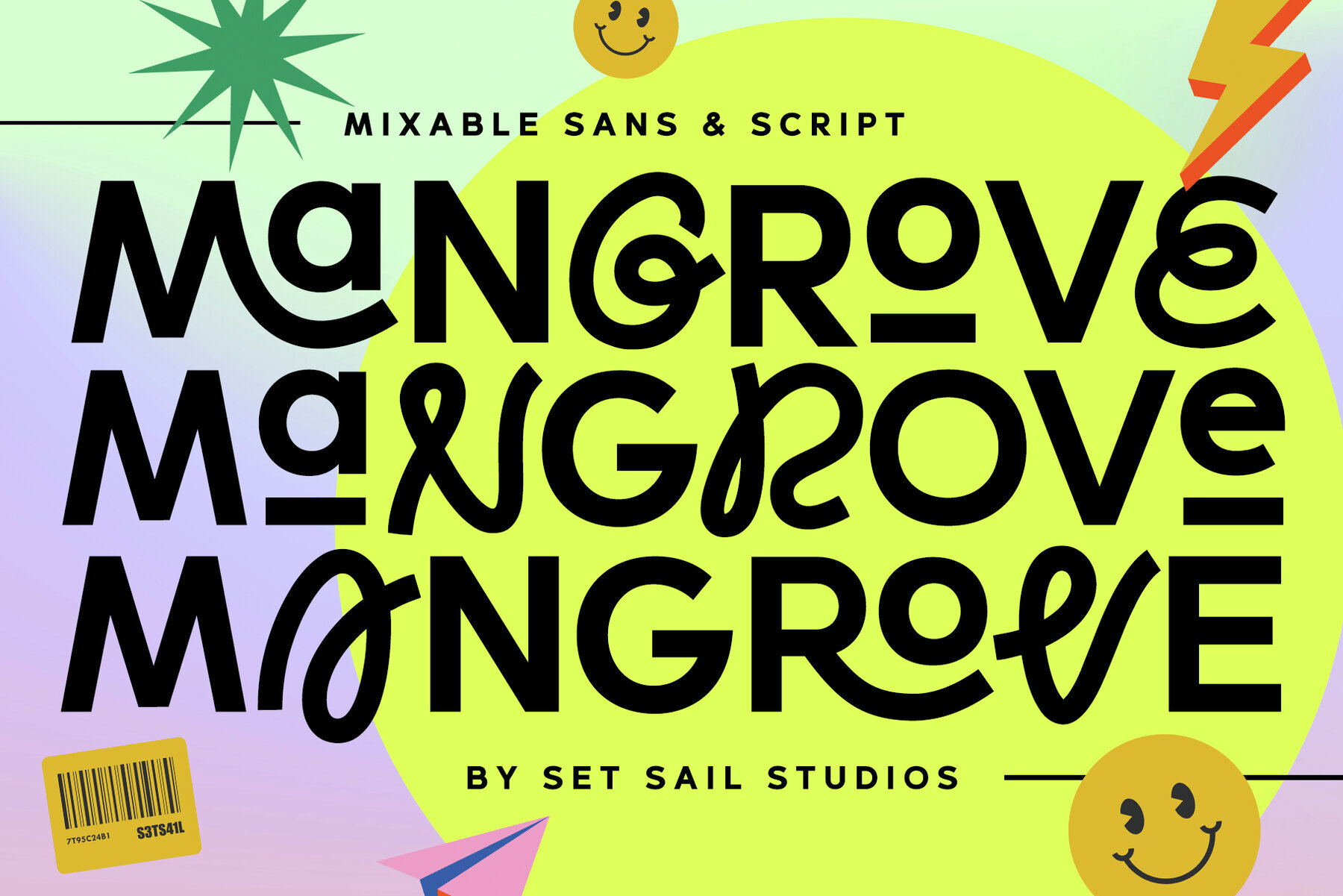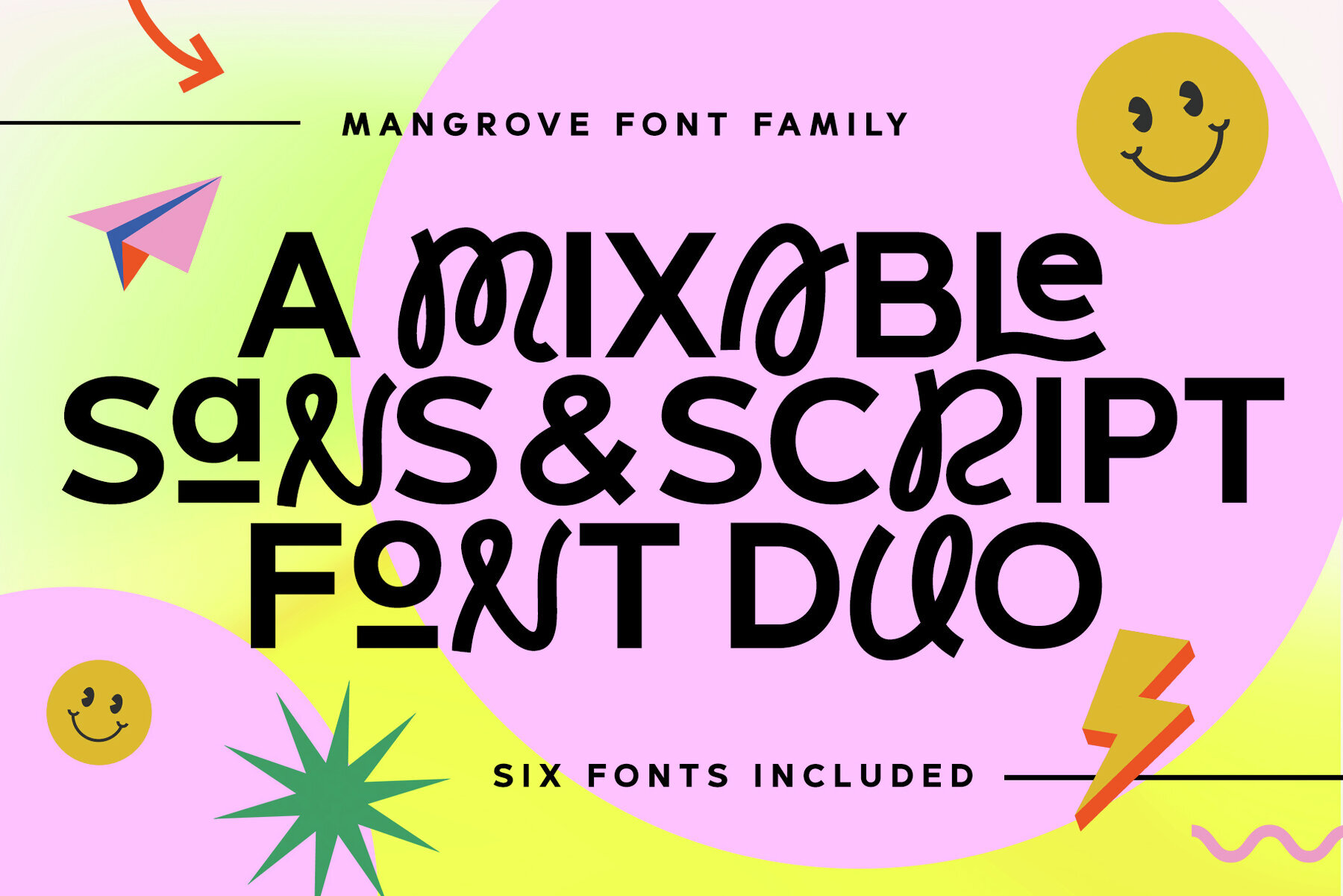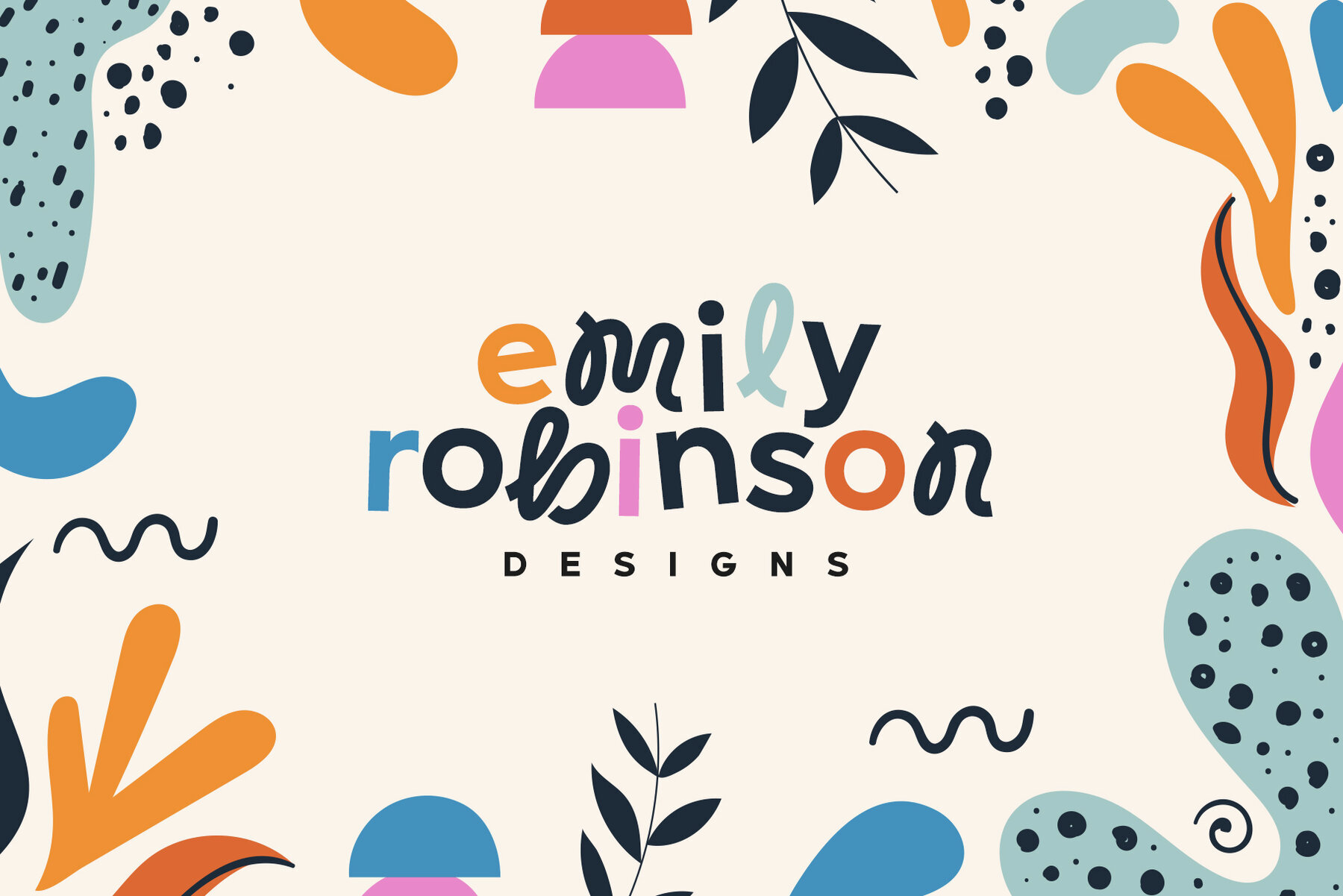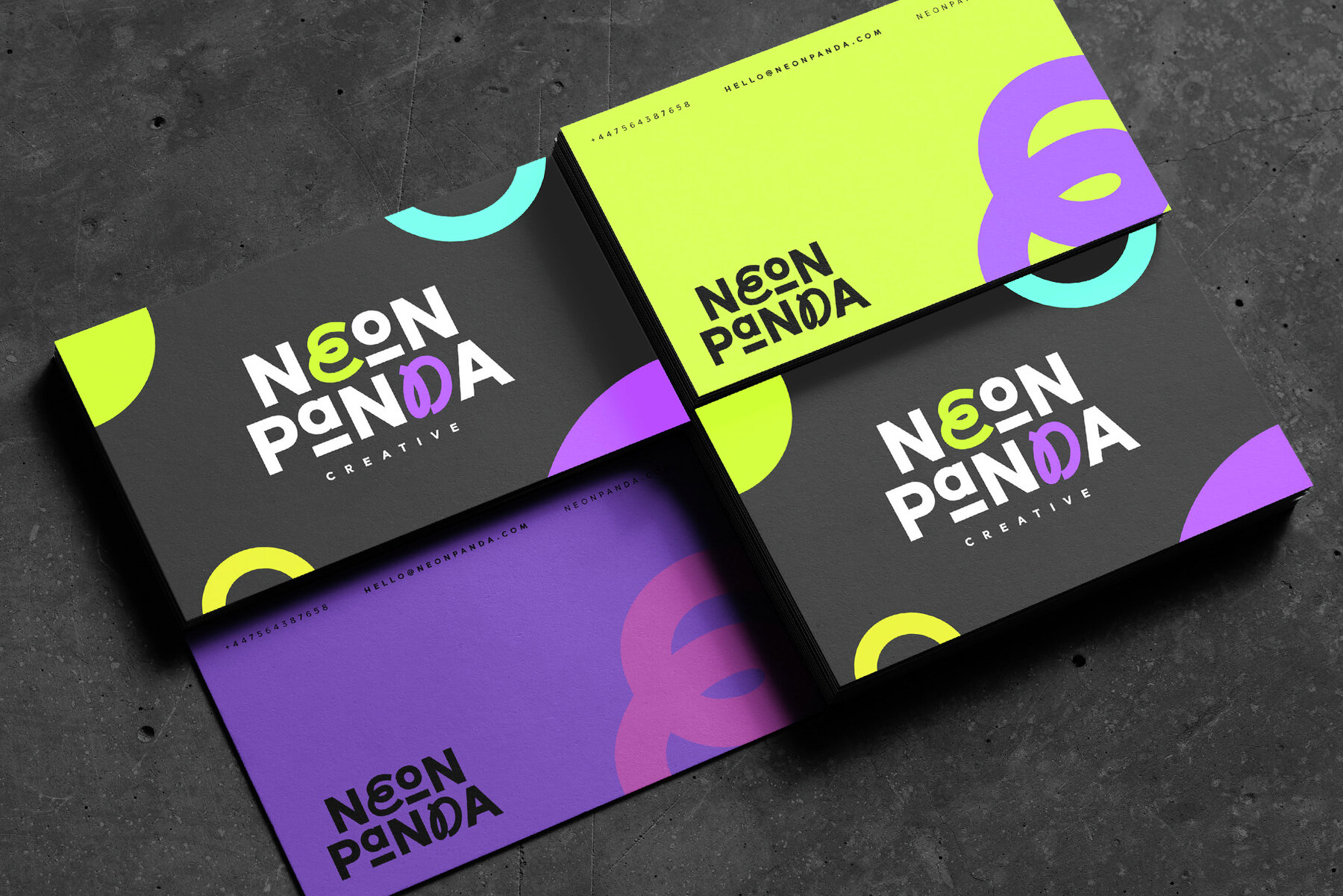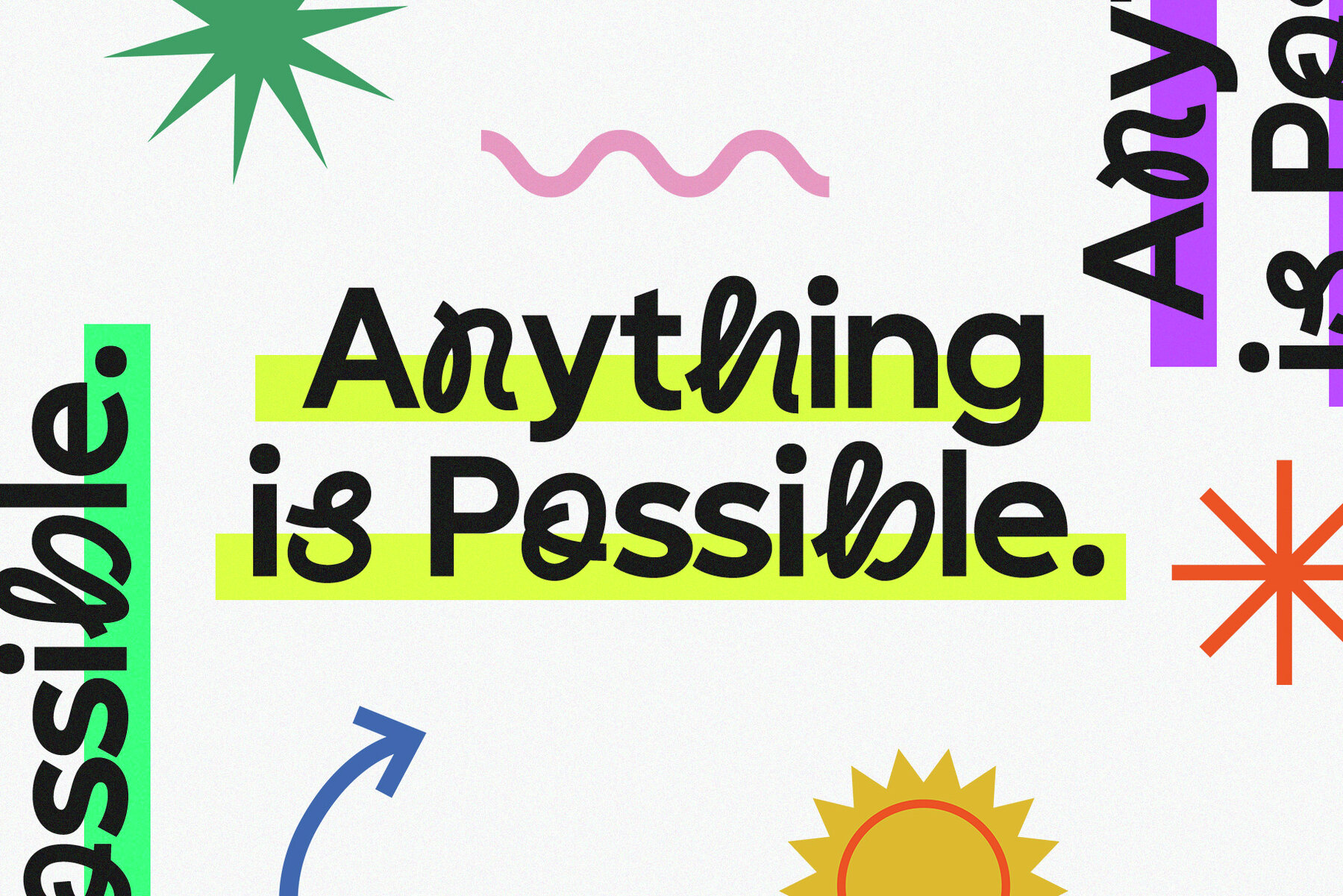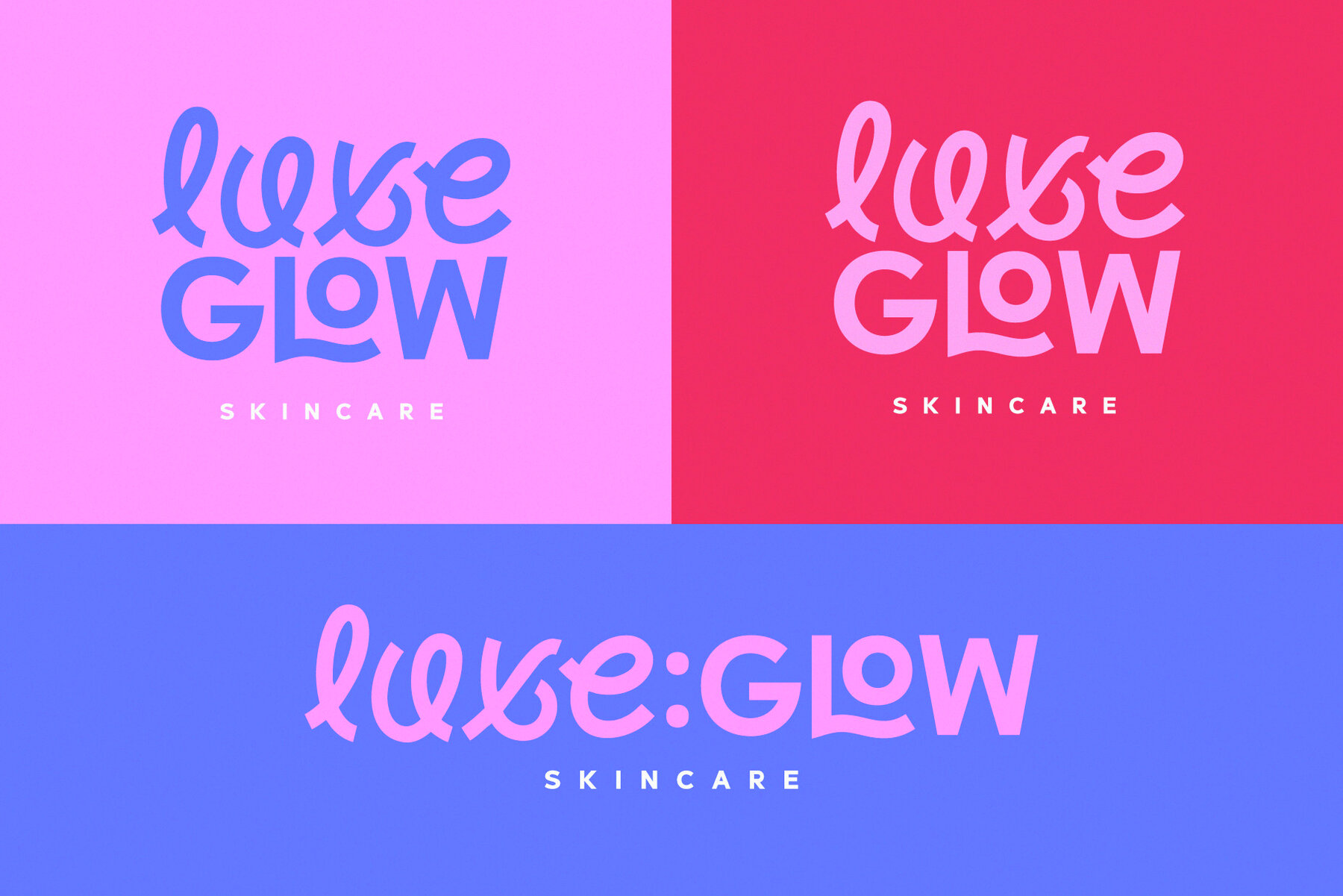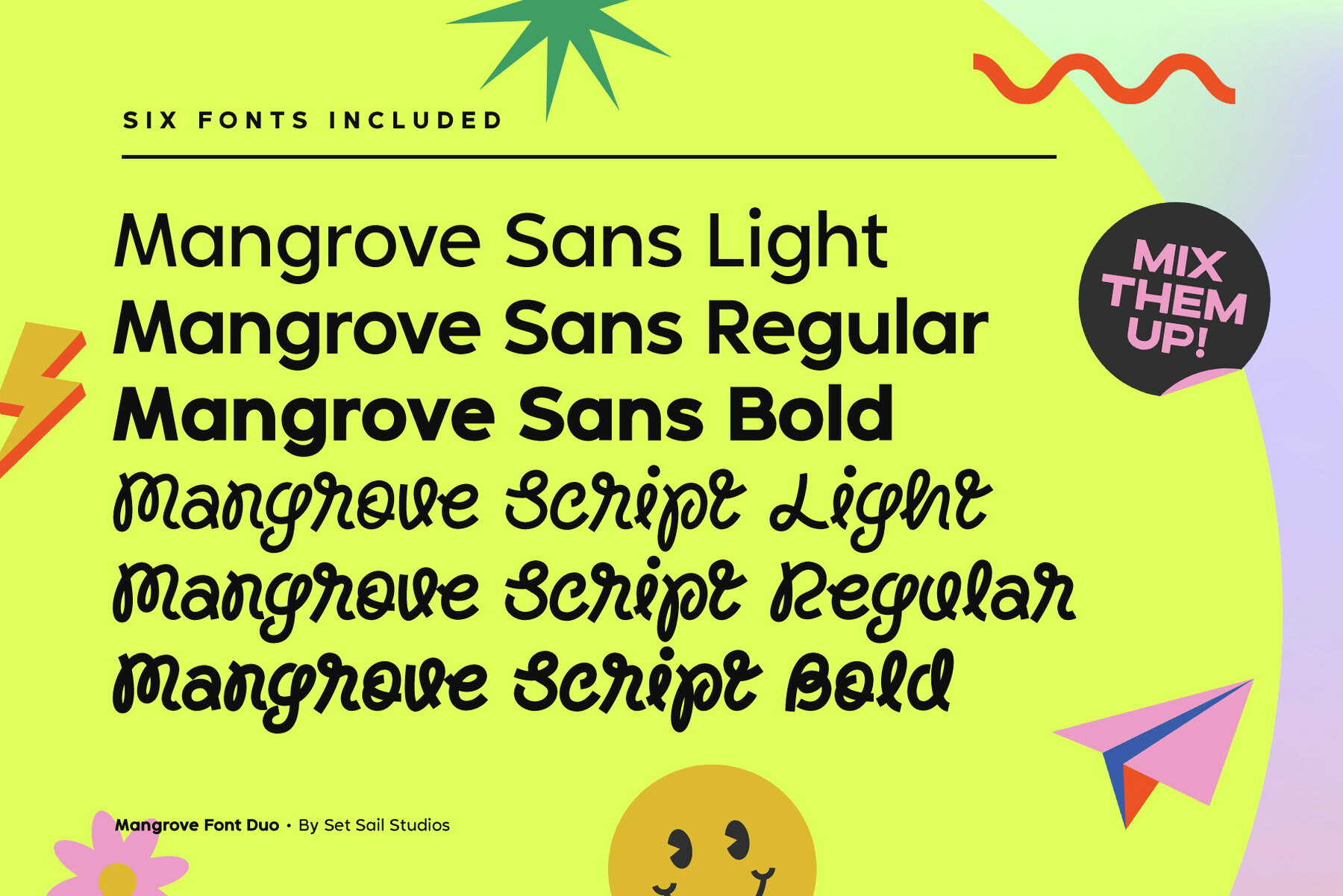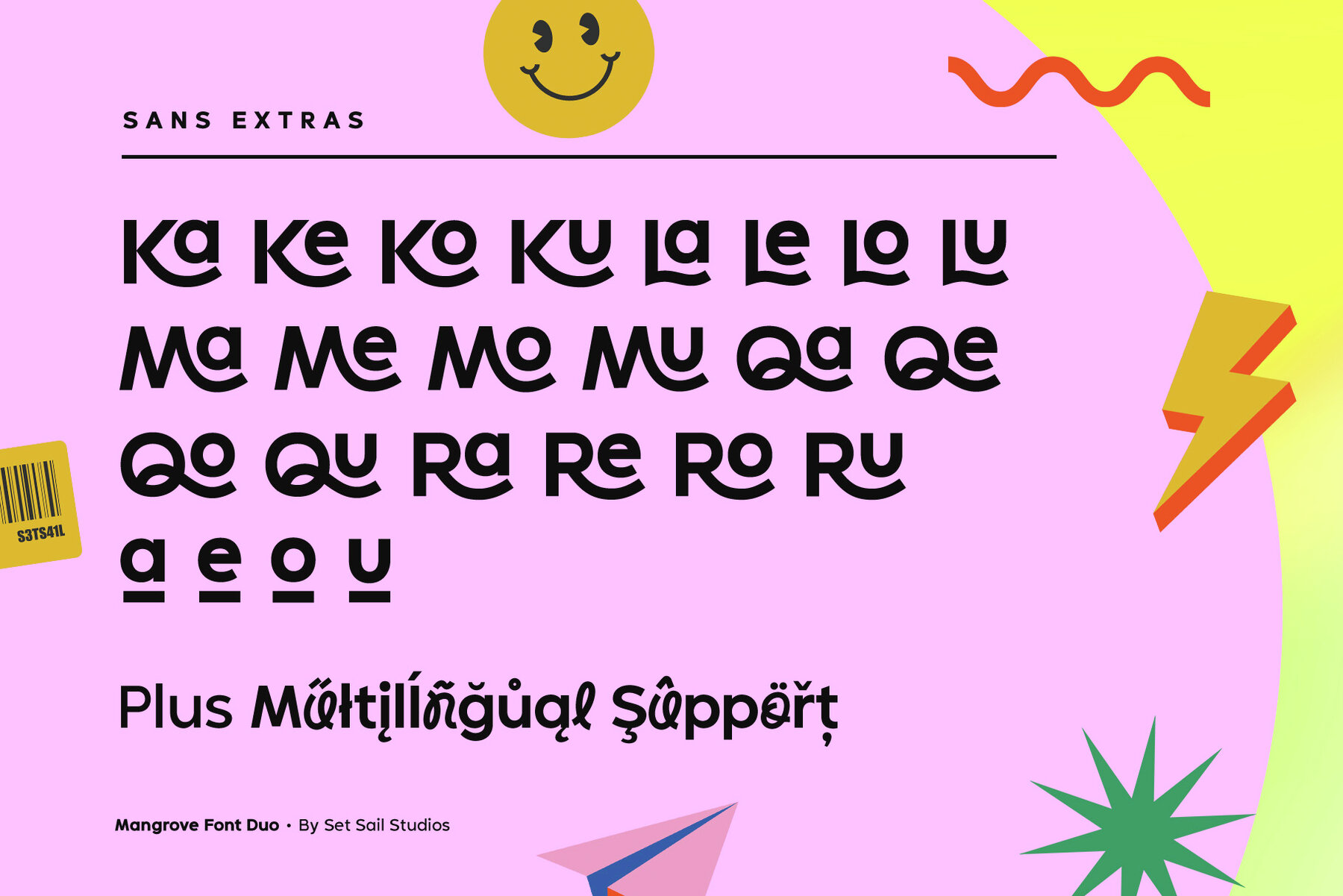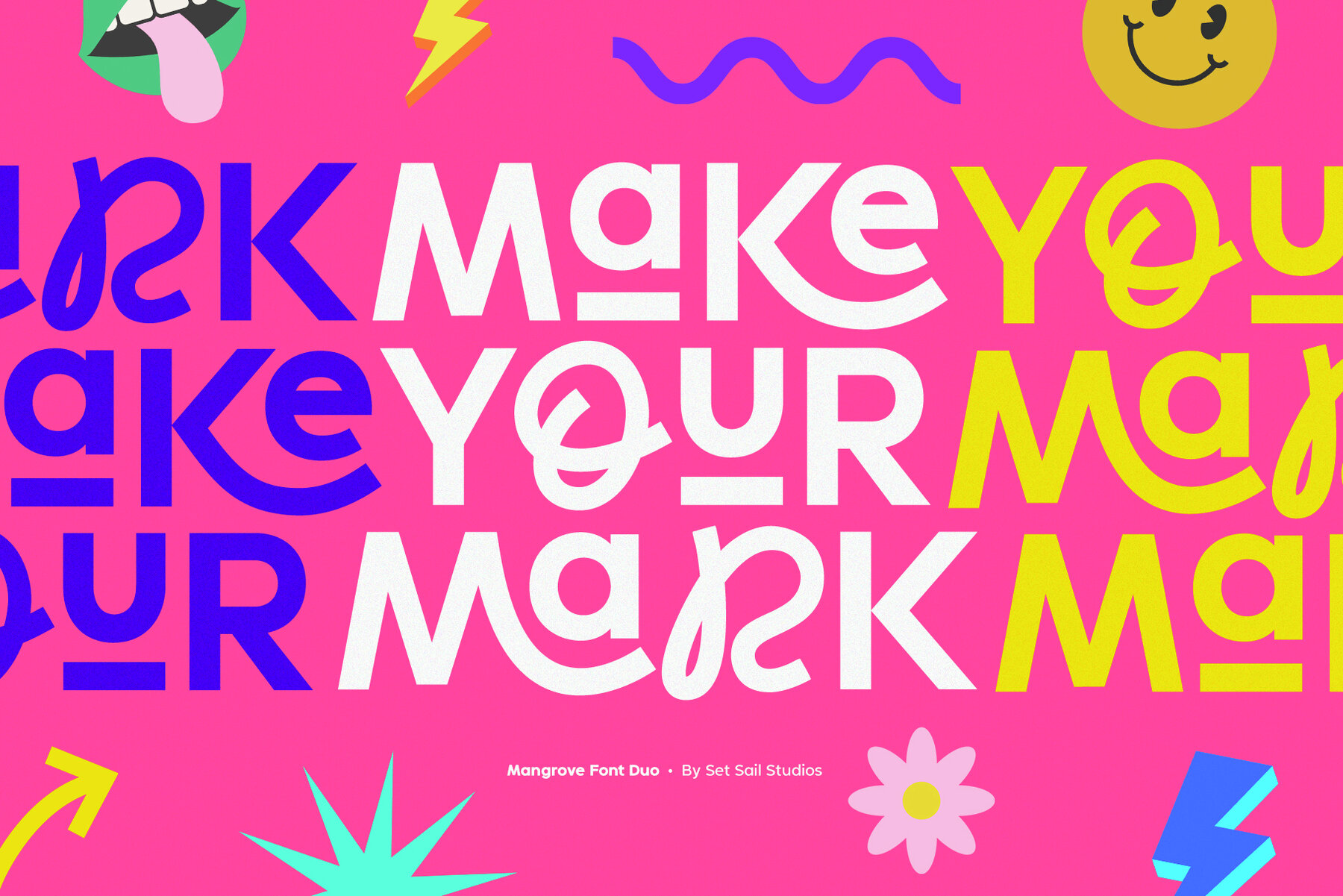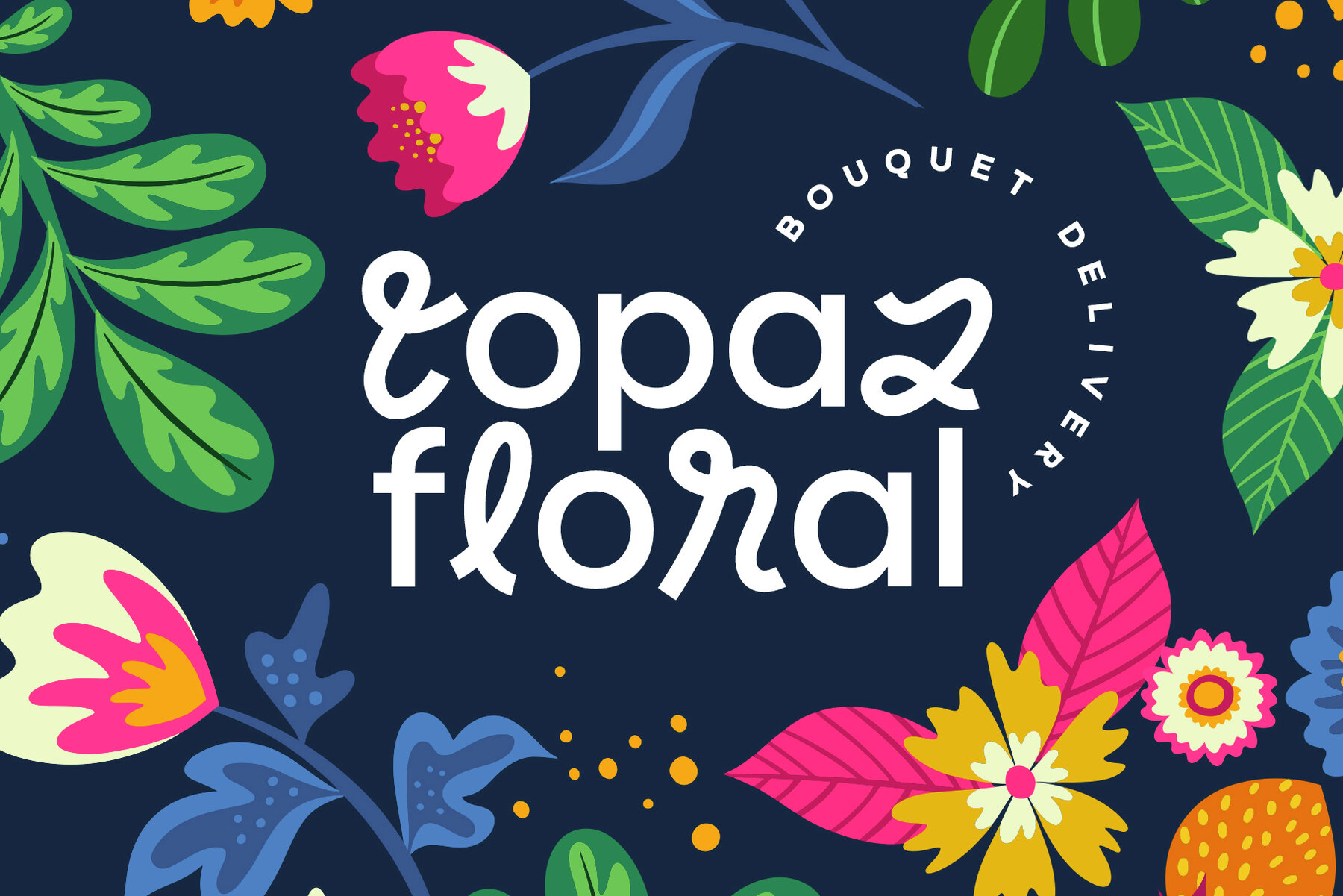
Mangrove Font Duo
Immerse yourself in the delightful dynamics of typeface design with the Mangrove Font Duo - a captivating pairing of Sans and Script fonts exclusively crafted by the acclaimed Set Sail Studios. These elegantly balanced typefaces not merely awe with their standalone appeal but also elegantly complement each other, serving as the quintessential typography toolkit for graphic designers and marketing firms alike. This distinct font duo is a testament to playful creativity, brilliantly bringing your letters to life. Inspired by the tropical beauty of mangroves, these fonts add a touch of natural charm to your communication design landscape, effortlessly blending visual appeal with highly readable typography. The Mangrove Font Duo is here to add a splash of sprightly personality to your brands and campaigns, ensuring an unforgettable impact. Key Features:Set Sail Studios Presents: The Mangrove Font Duo - A Graphic Designer's Dream